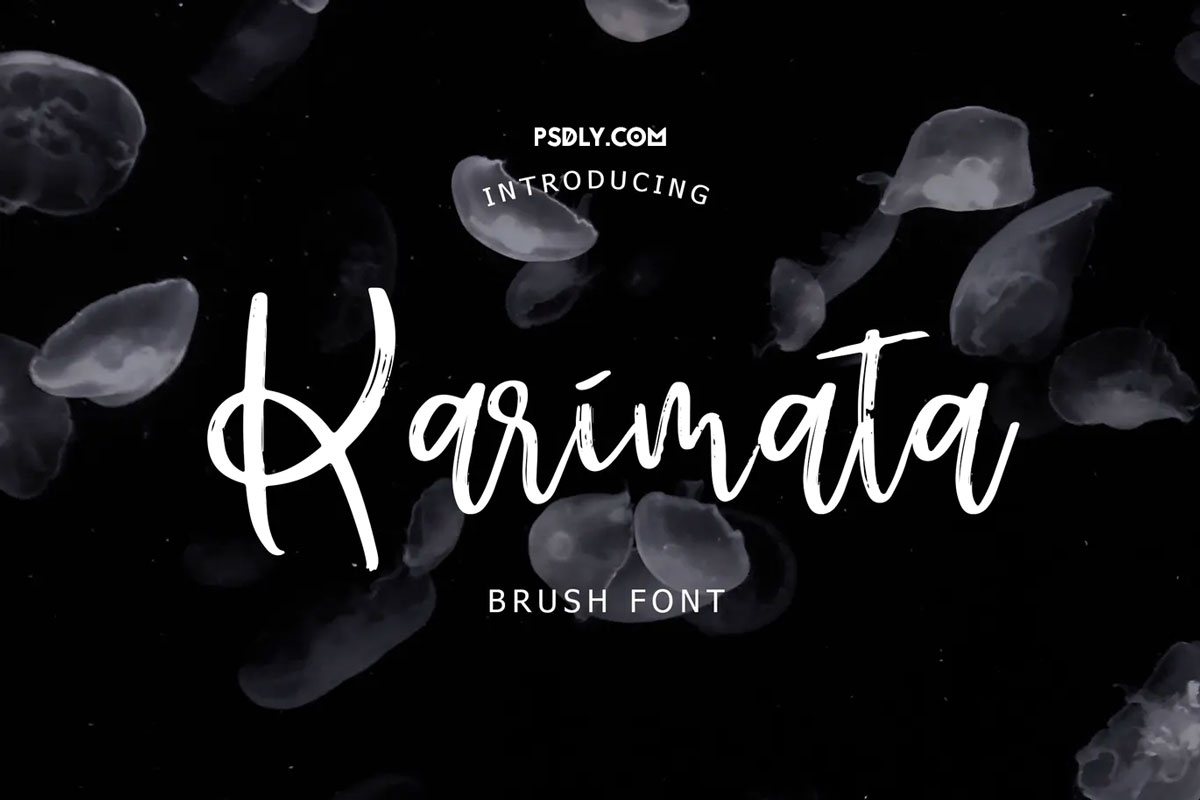
Karimata Brush Script Font
Envato Elements Karimata Brush Script Font Free Download. Karimata is an exciting handwritten font with brush style. This beautiful script can make your text appear elegant, luxurious, and modern!